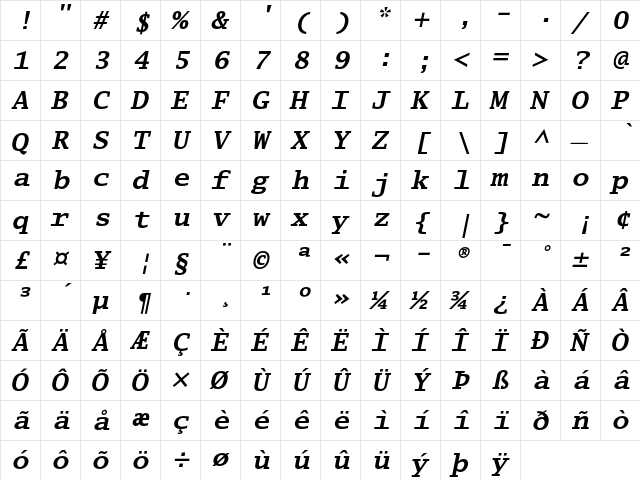
Lucida Typewriter Bold Oblique Font Preview
Design Context for Lucida Typewriter Typeface
Lucida Typewriter uses fixed-width spacing throughout, giving it the structured, systematic character associated with coding environments and technical documentation. Its italic angle brings a sense of urgency and motion to the letterforms. The heavy weight commands attention and anchors typographic hierarchies.